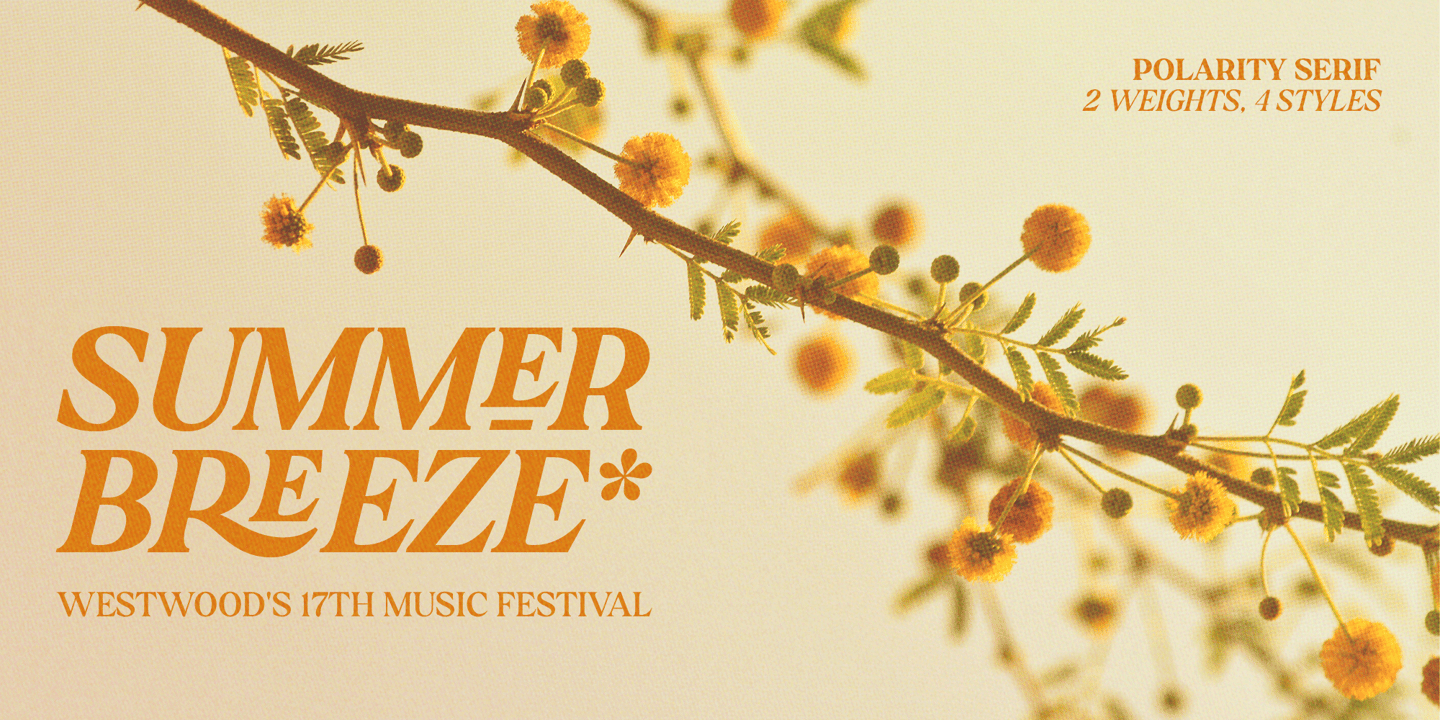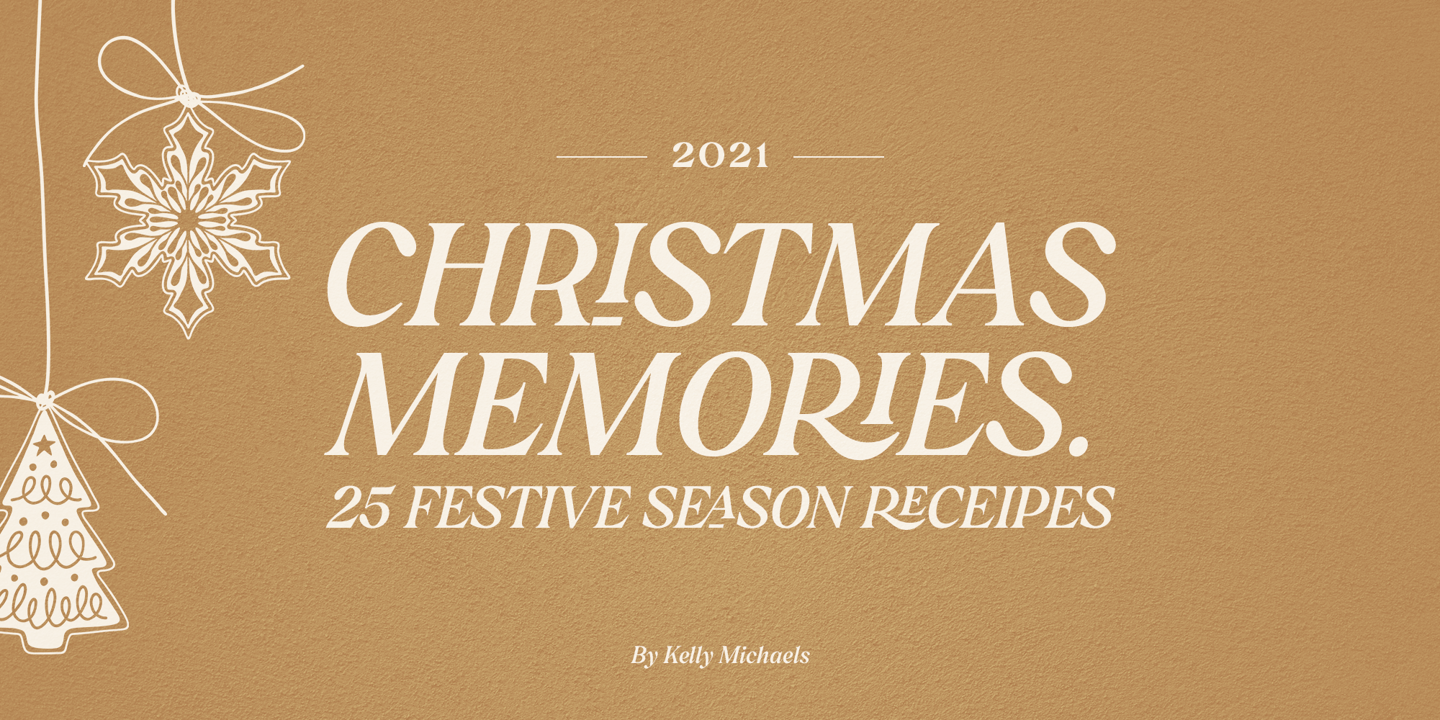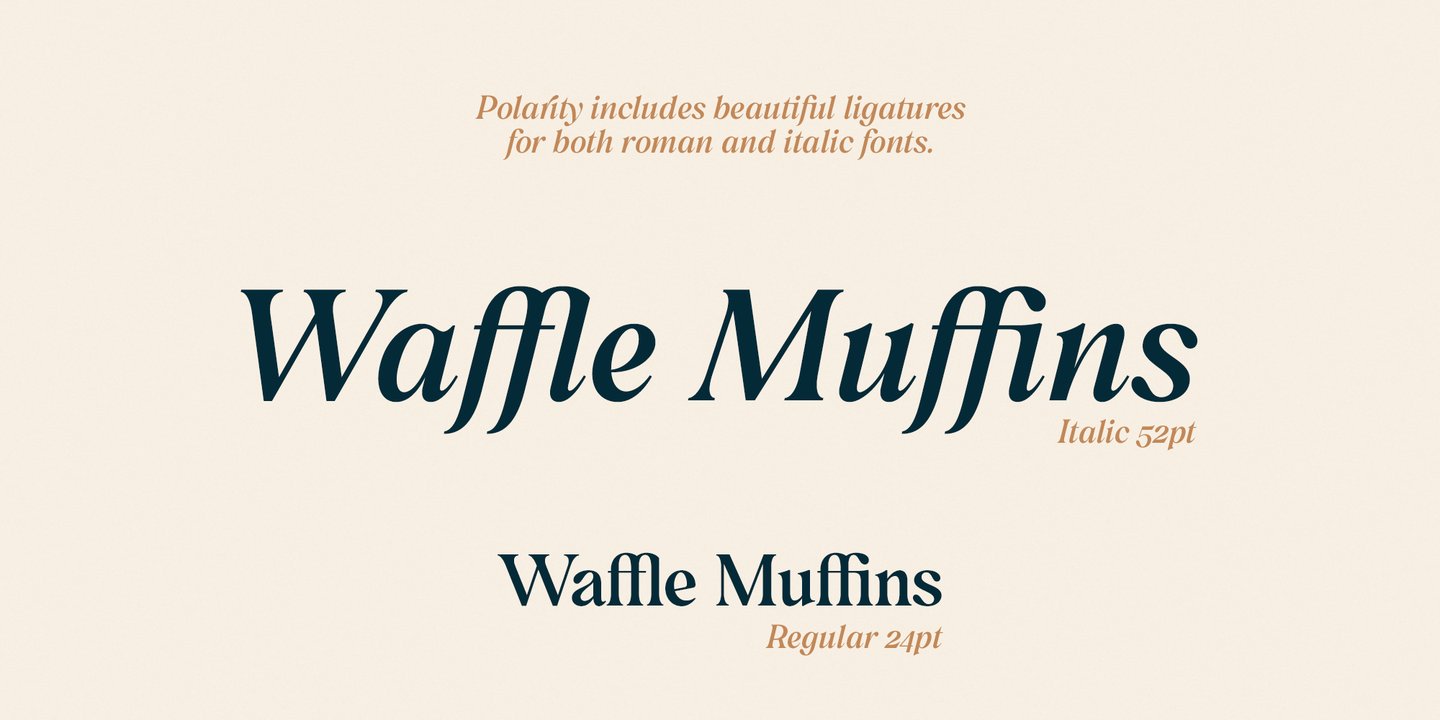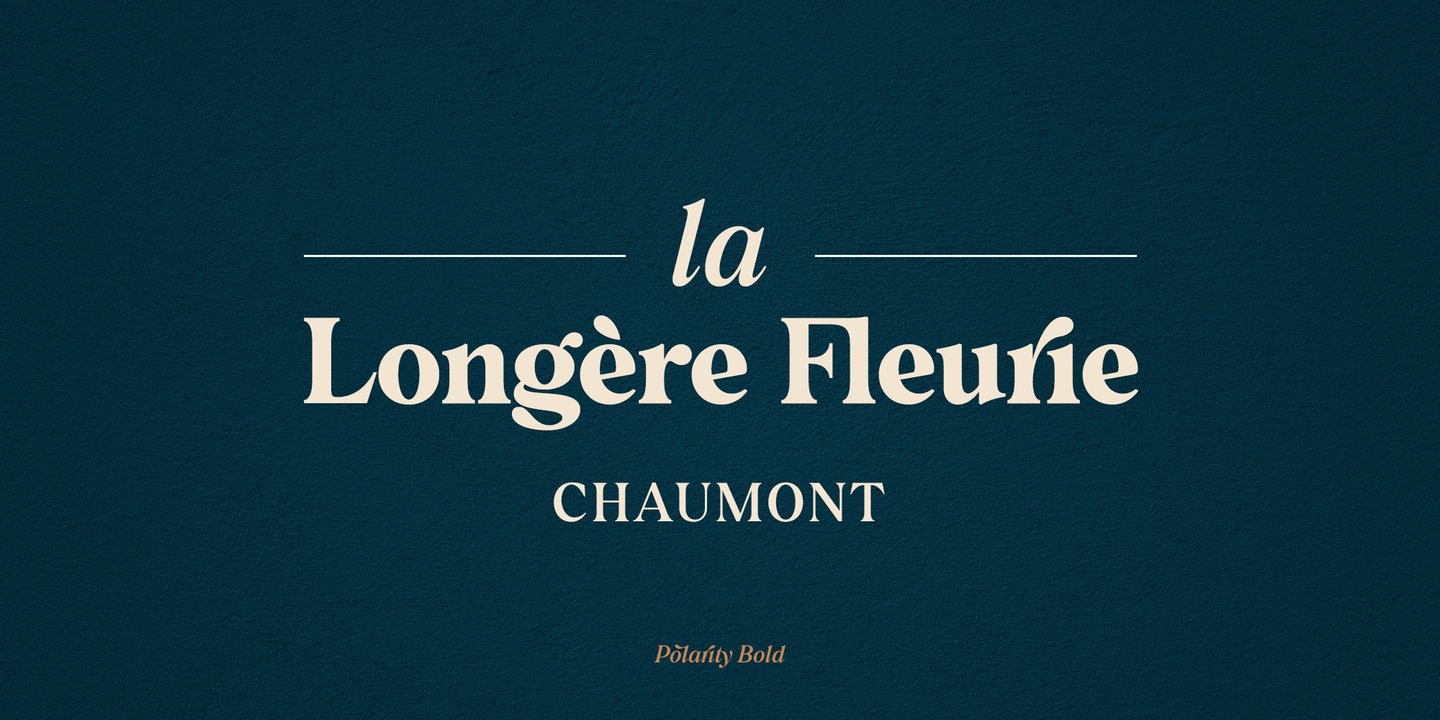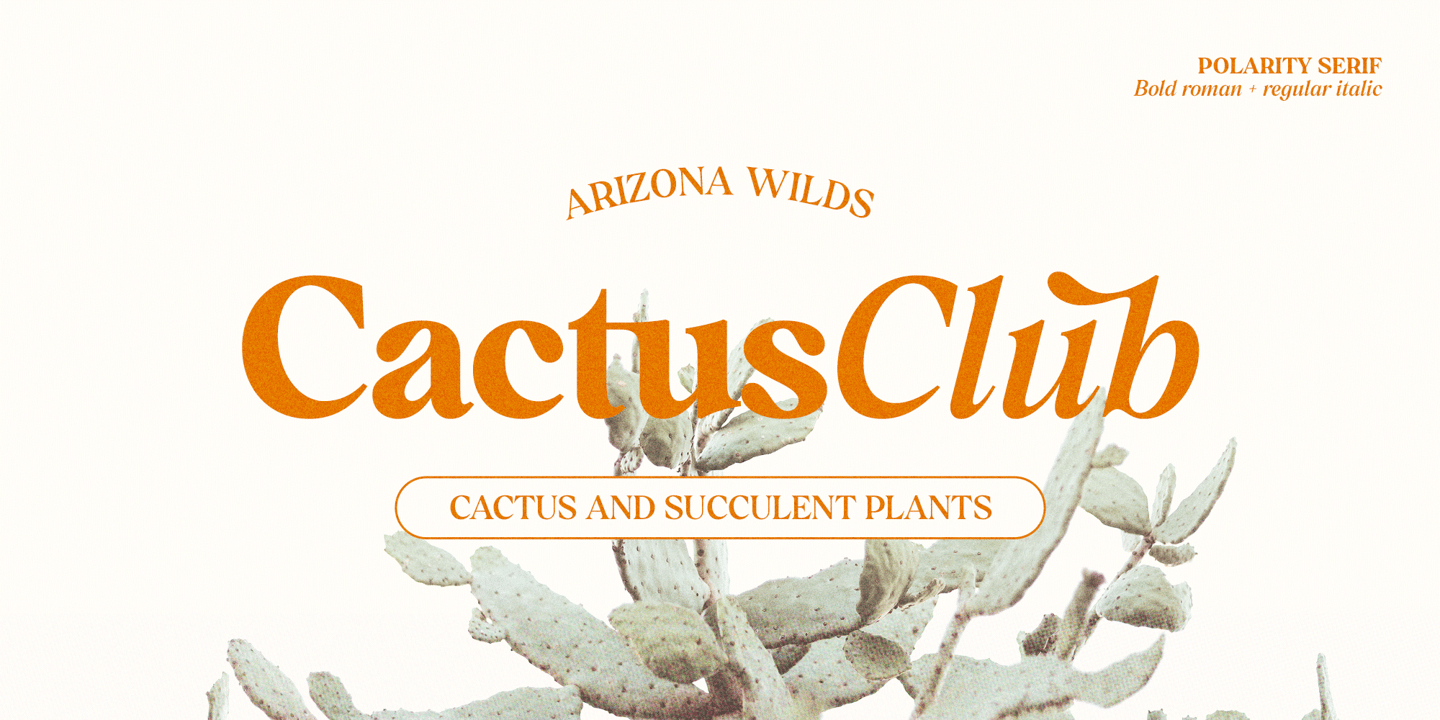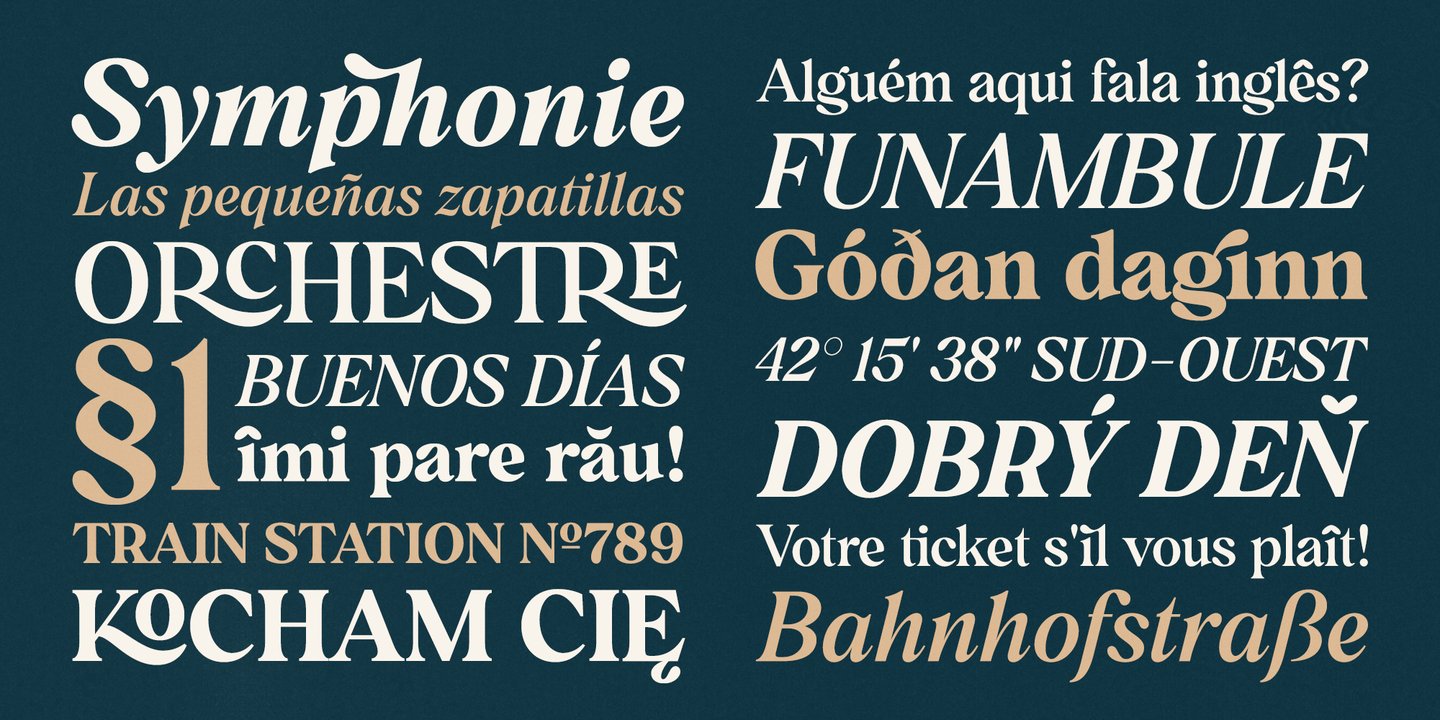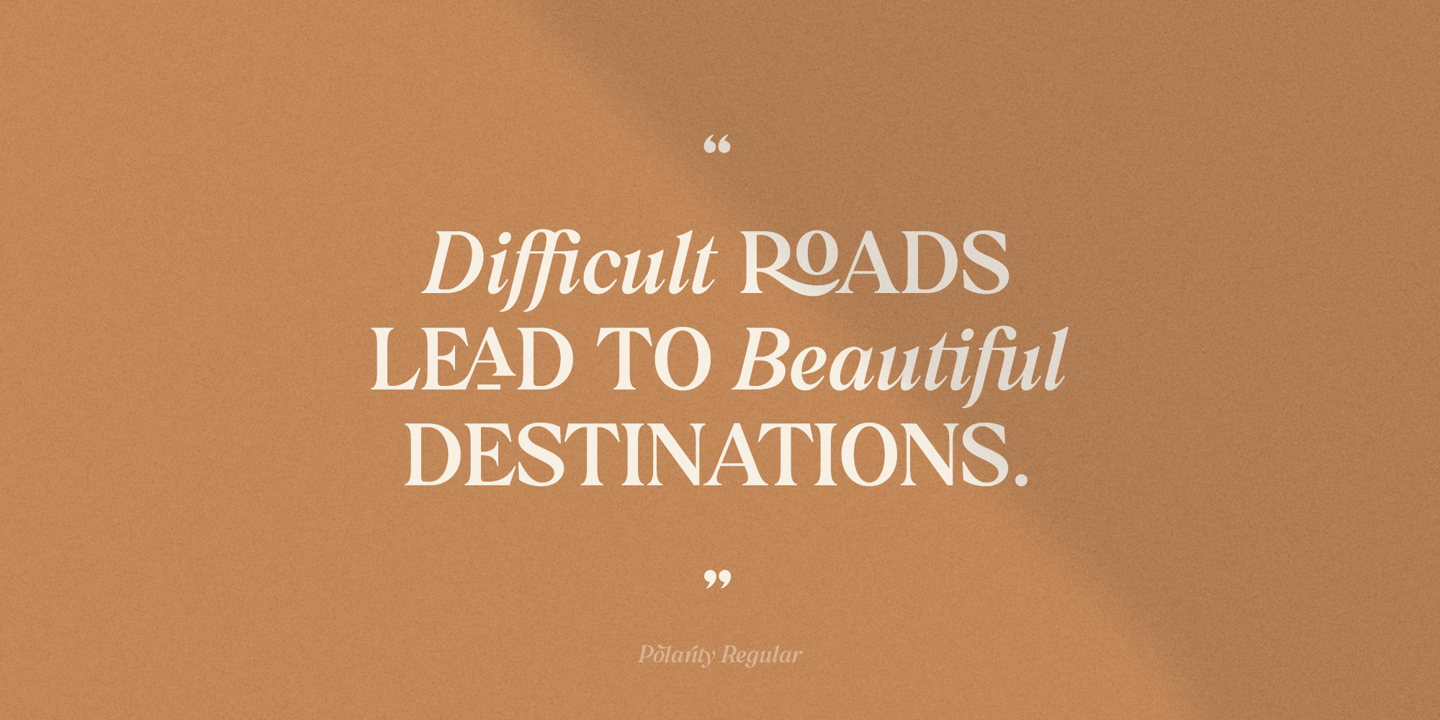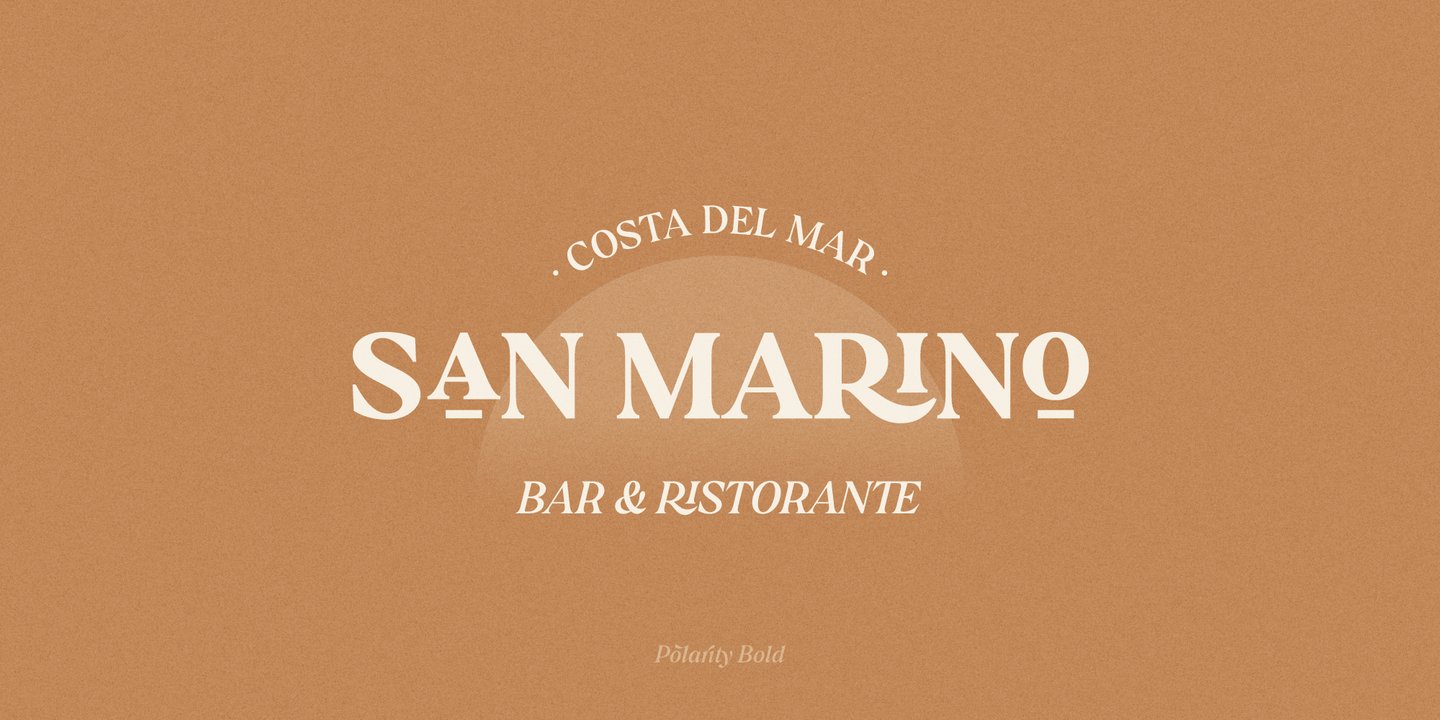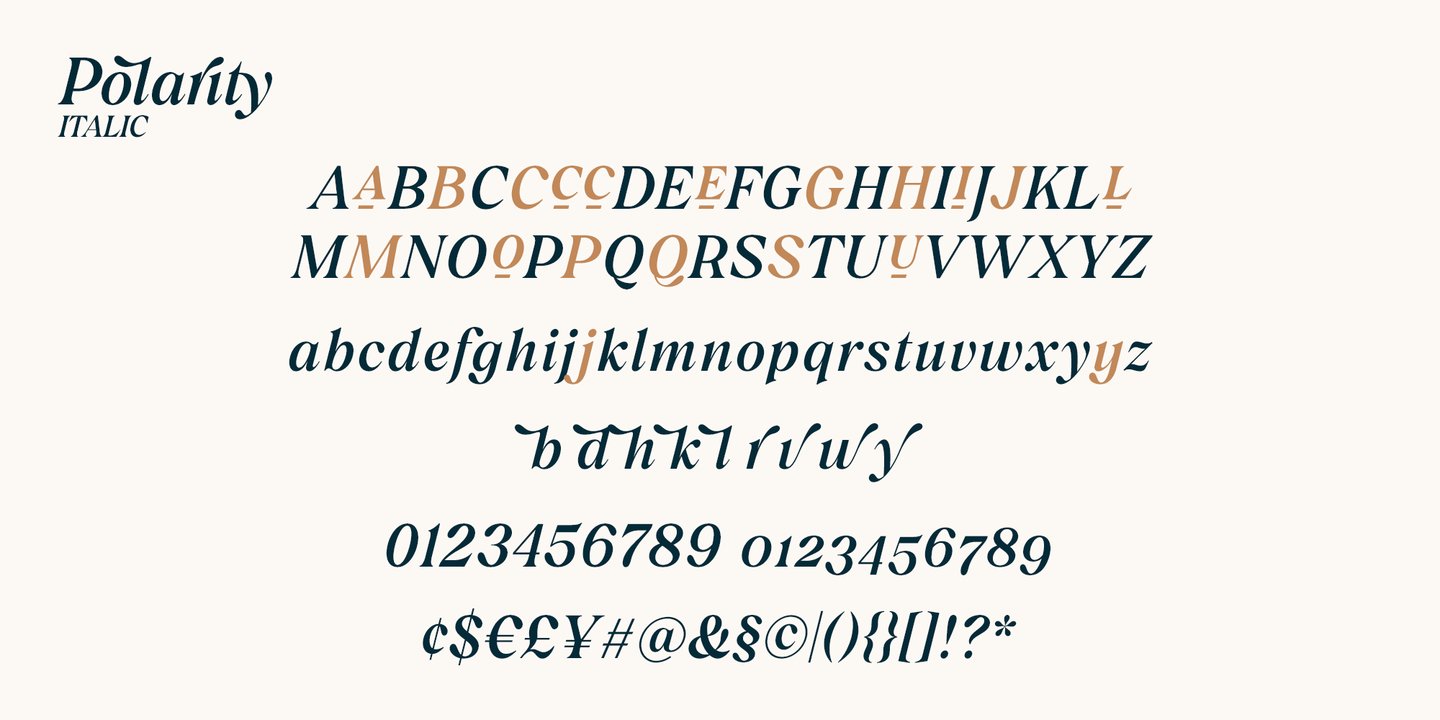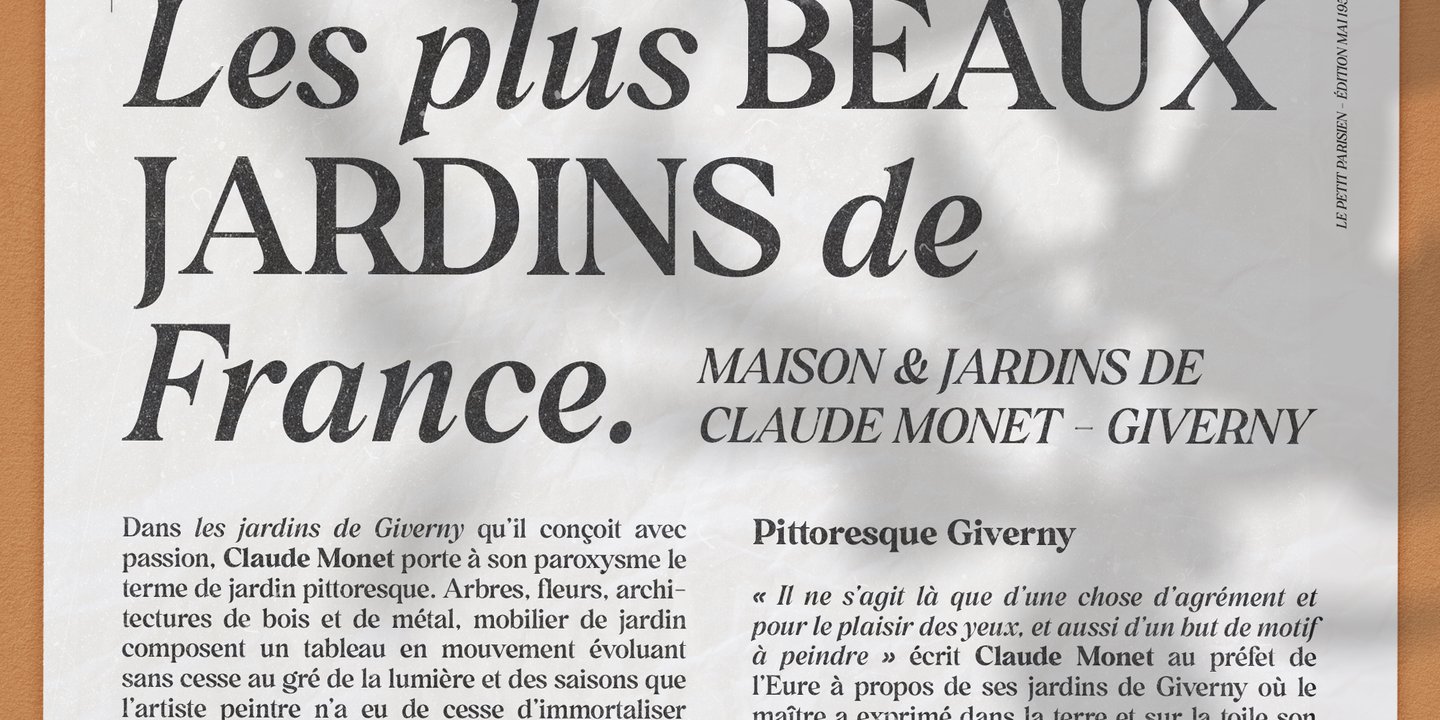
Polarity is a serif typeface with 2 styles, a roman and an italic which compliment each other gracefully.
While the roman is bold and modern, the true italic gives an elegant classic touch for a perfect combination that will make your typography truly unique.
If both styles are designed to be complementary, they are also thought to stand out on their own, making Polarity a two-faced serif and giving you the opportunity to use it for a wider range of projects.
With 2 weights (regular and bold) and 2 styles - 4 fonts in total the type family is equipped with various opentype features such as stylistic alternates, beautiful ligatures, additional symbols, old styles figures and multilingual support for major latin based languages.